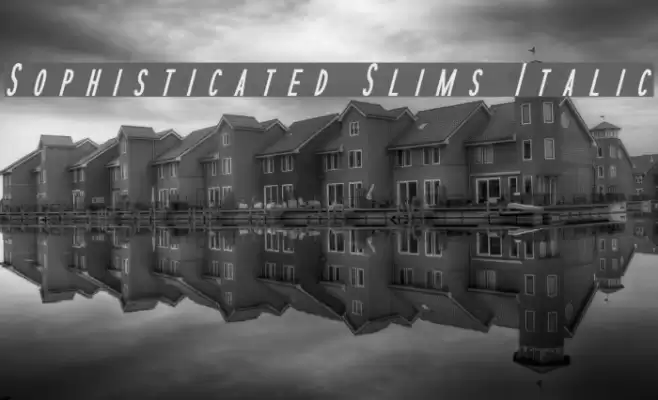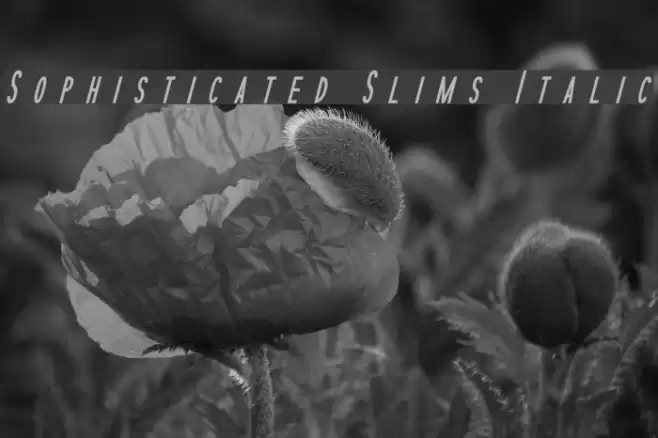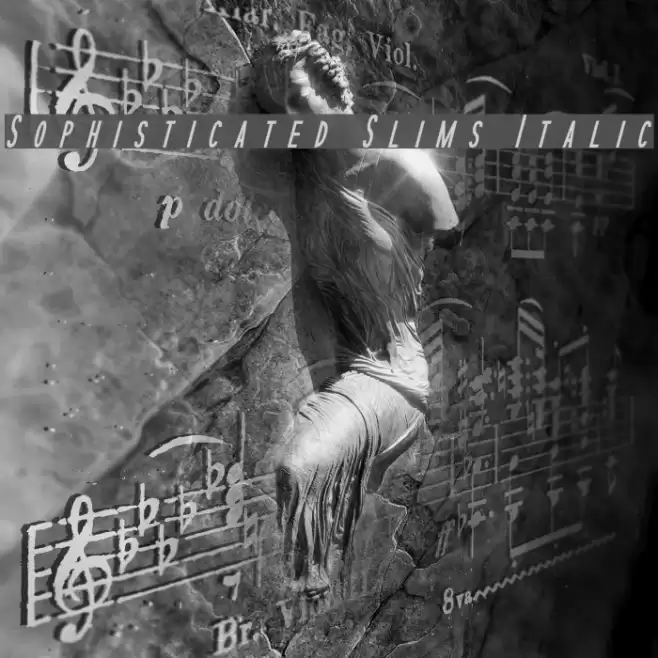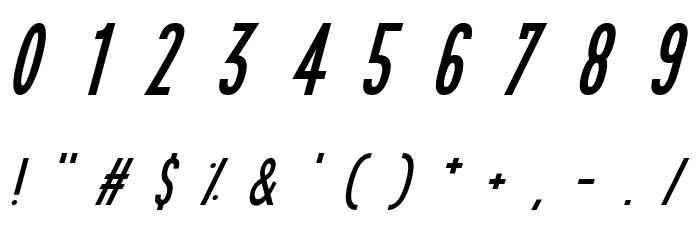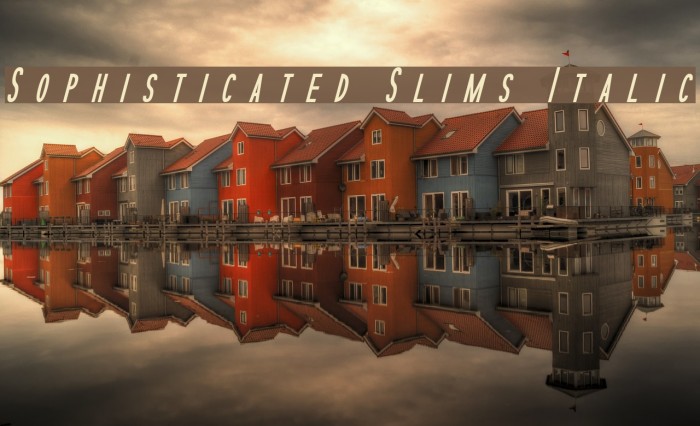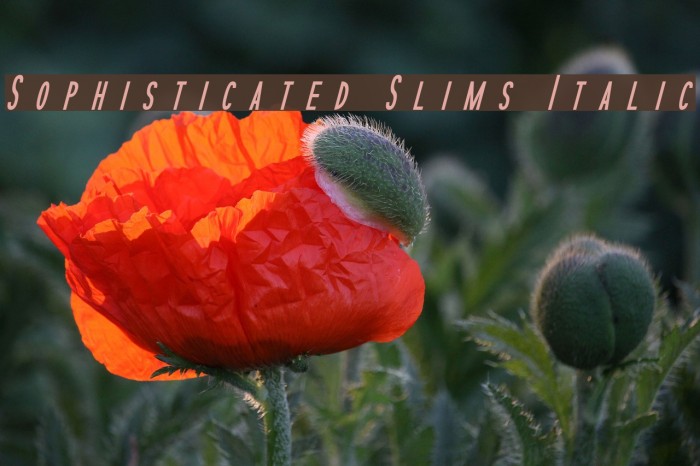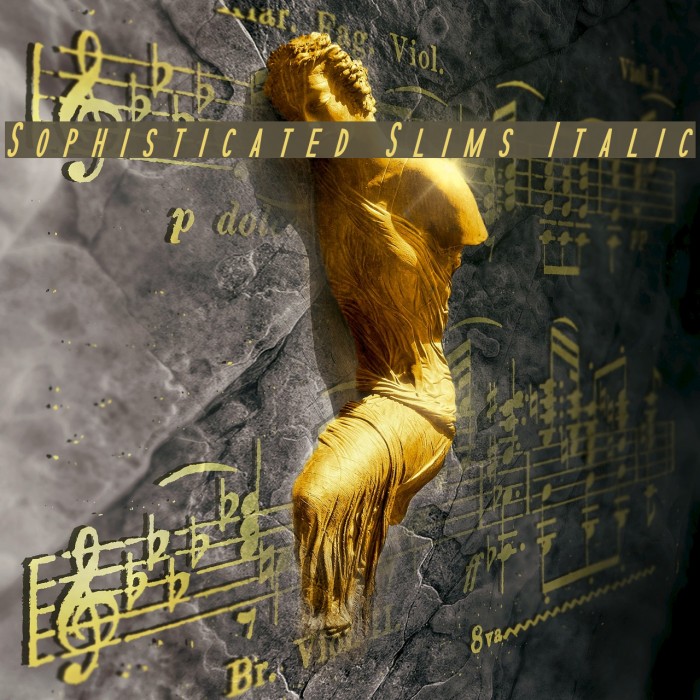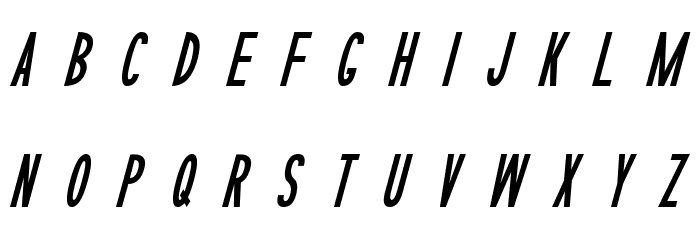
Sophisticated Slims Italic Font
Sophisticated Slims Italic Description
This font exhibits a sleek and modern aesthetic with its italicized form, giving it a dynamic and forward-leaning appearance. The characters are elongated and slightly condensed, contributing to a sophisticated and elegant look. The strokes are consistent in weight, providing a uniform and clean presentation. The overall style is contemporary, making it suitable for a variety of design applications. The font maintains a balanced contrast, ensuring readability while adding a touch of flair. Its distinct slant and streamlined form make it ideal for projects that require a touch of modernity and elegance.
A sleek, modern italic font with elongated, condensed characters from Uncategorized fonts.
- Proposed Projects: Ideal for fashion magazines, modern branding, product packaging, and dynamic web design.
- Use Case: Headlines, Logos, Branding